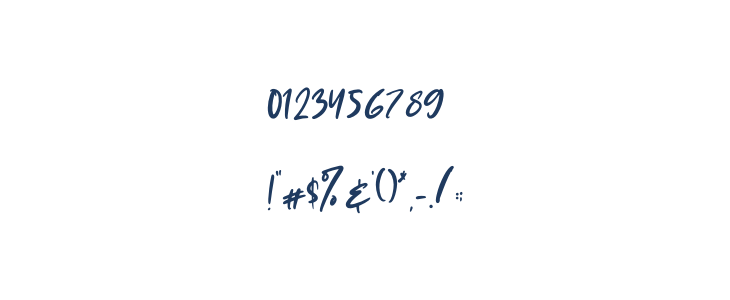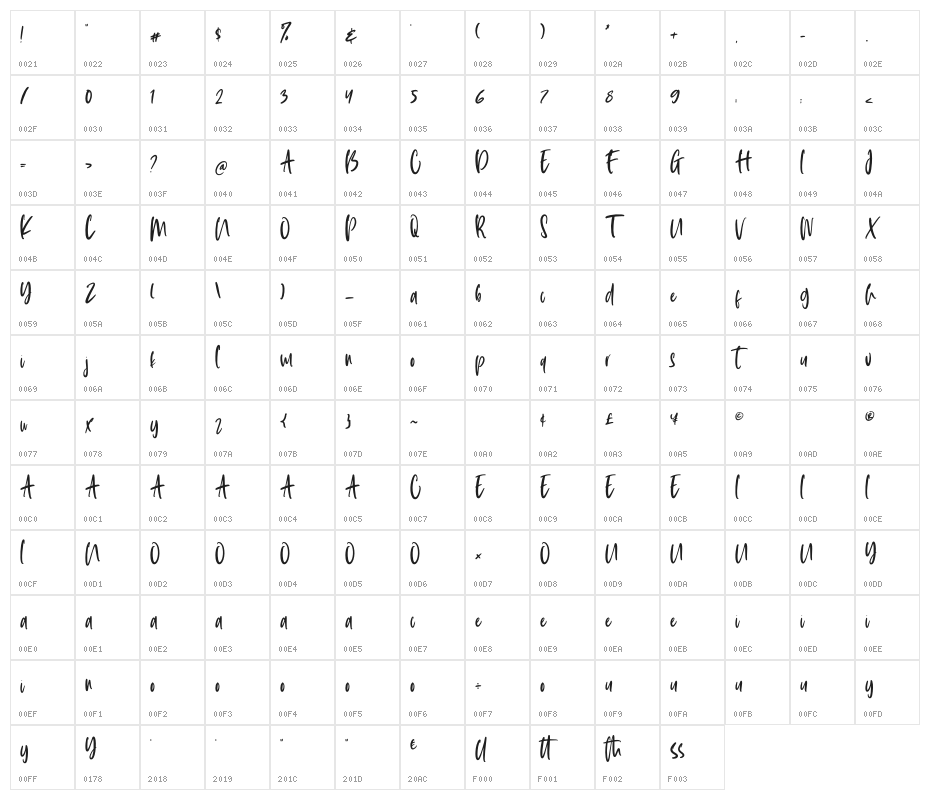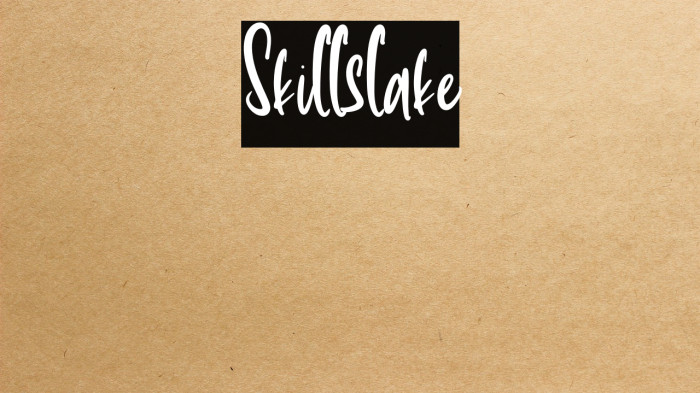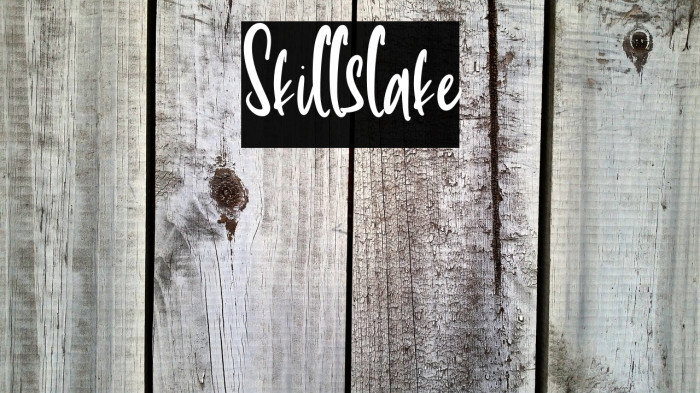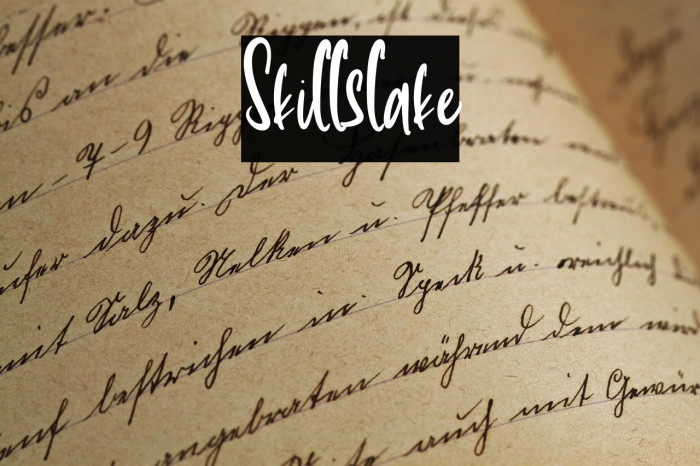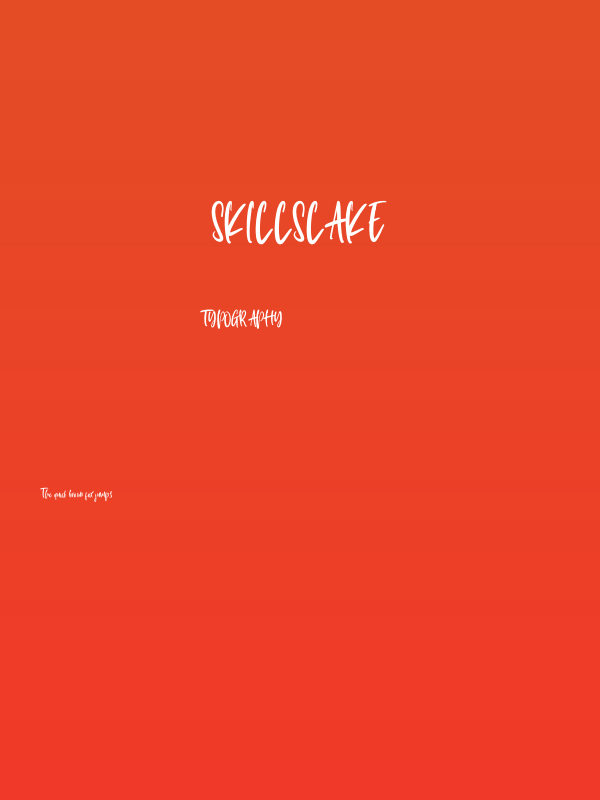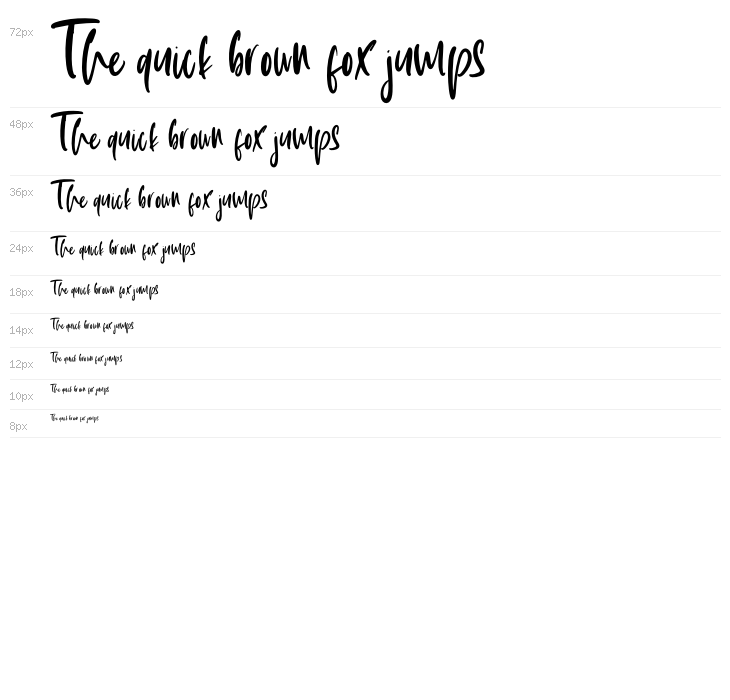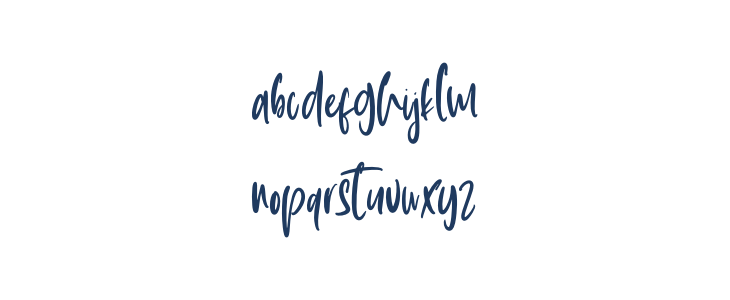
Skillslake Font
Skillslake Description
This font features a lively and expressive handwritten style, characterized by its fluid and dynamic strokes. The uppercase letters are bold and slightly slanted, giving a sense of motion and energy. The lowercase letters maintain a consistent flow, with some letters connecting smoothly to each other, enhancing the handwritten feel. The numerals are clear and legible, matching the playful yet sophisticated aesthetic of the alphabet. Special characters are crafted with the same attention to detail, ensuring they blend seamlessly with the rest of the font. Overall, this font exudes a casual yet stylish vibe, making it suitable for a variety of creative applications.